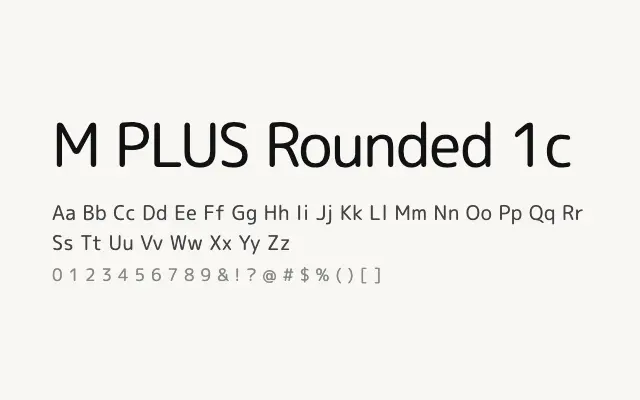
M PLUS Rounded 1c
A cheerful, rounded sans-serif from the M PLUS family that pairs broad multilingual coverage with a warm, approachable personality.
M PLUS Rounded 1c applies uniform rounded terminals to every stroke ending, distinguishing it clearly from the more neutral members of the M PLUS family. This softness makes it a natural fit for children's products, consumer apps, and any brand identity that wants to feel accessible rather than corporate. The seven weights and support for Cyrillic Extended and Greek give it meaningful reach for international projects with a friendly visual tone.
A geometric sans-serif with softened, rounded terminals applied uniformly to stroke endings, giving it a distinctly friendly and approachable character. The rounded treatment extends consistently across Latin, Cyrillic, and Greek scripts.